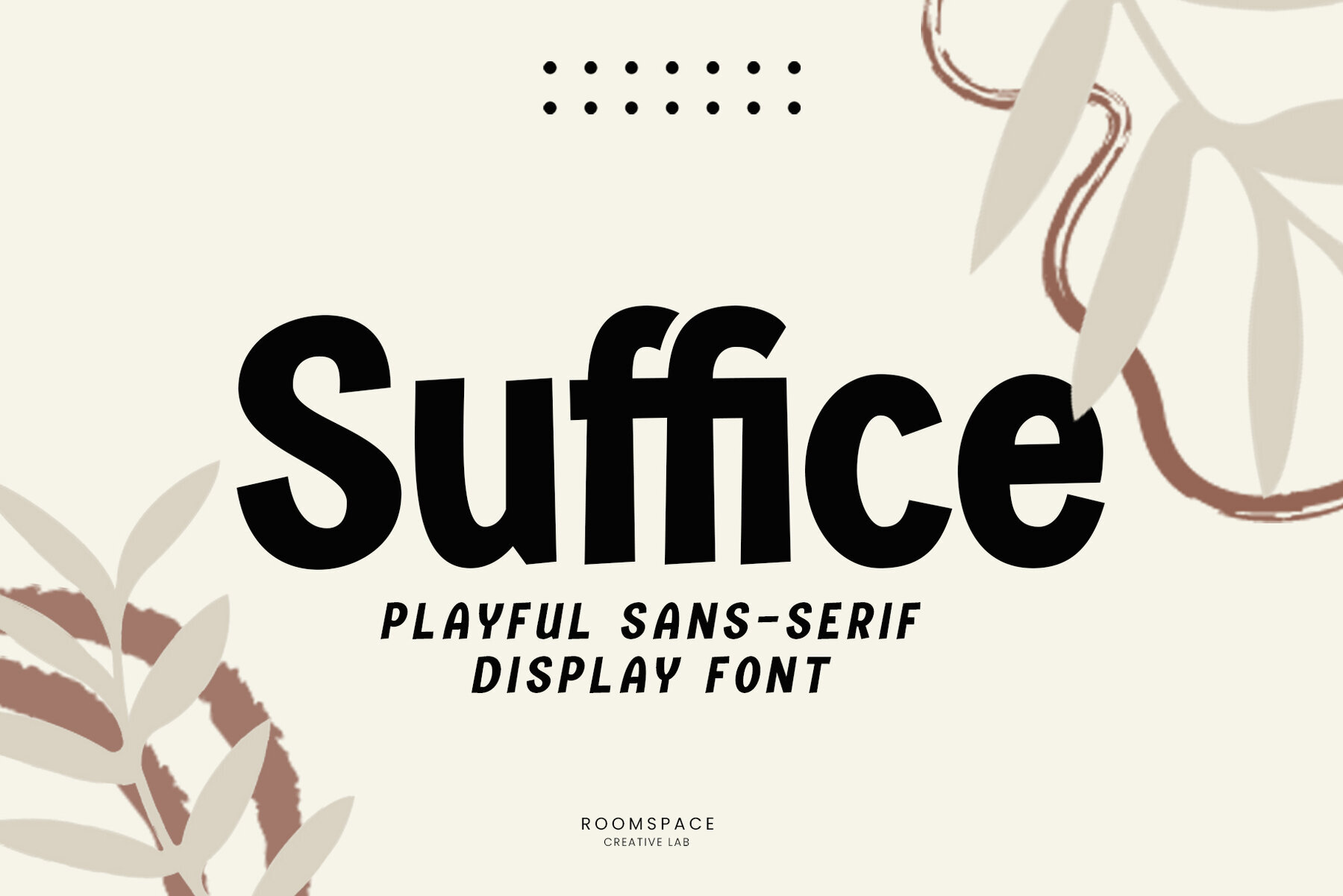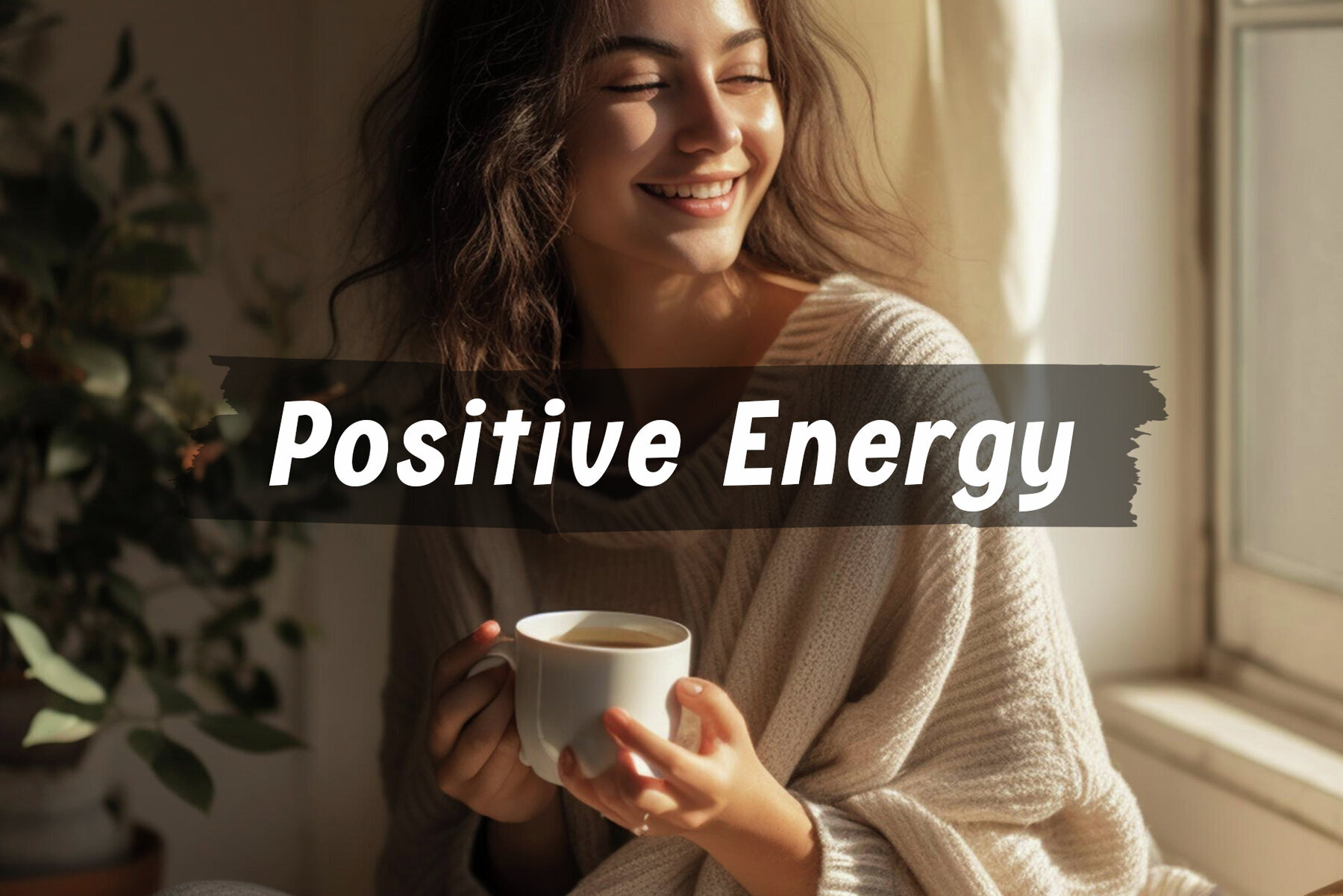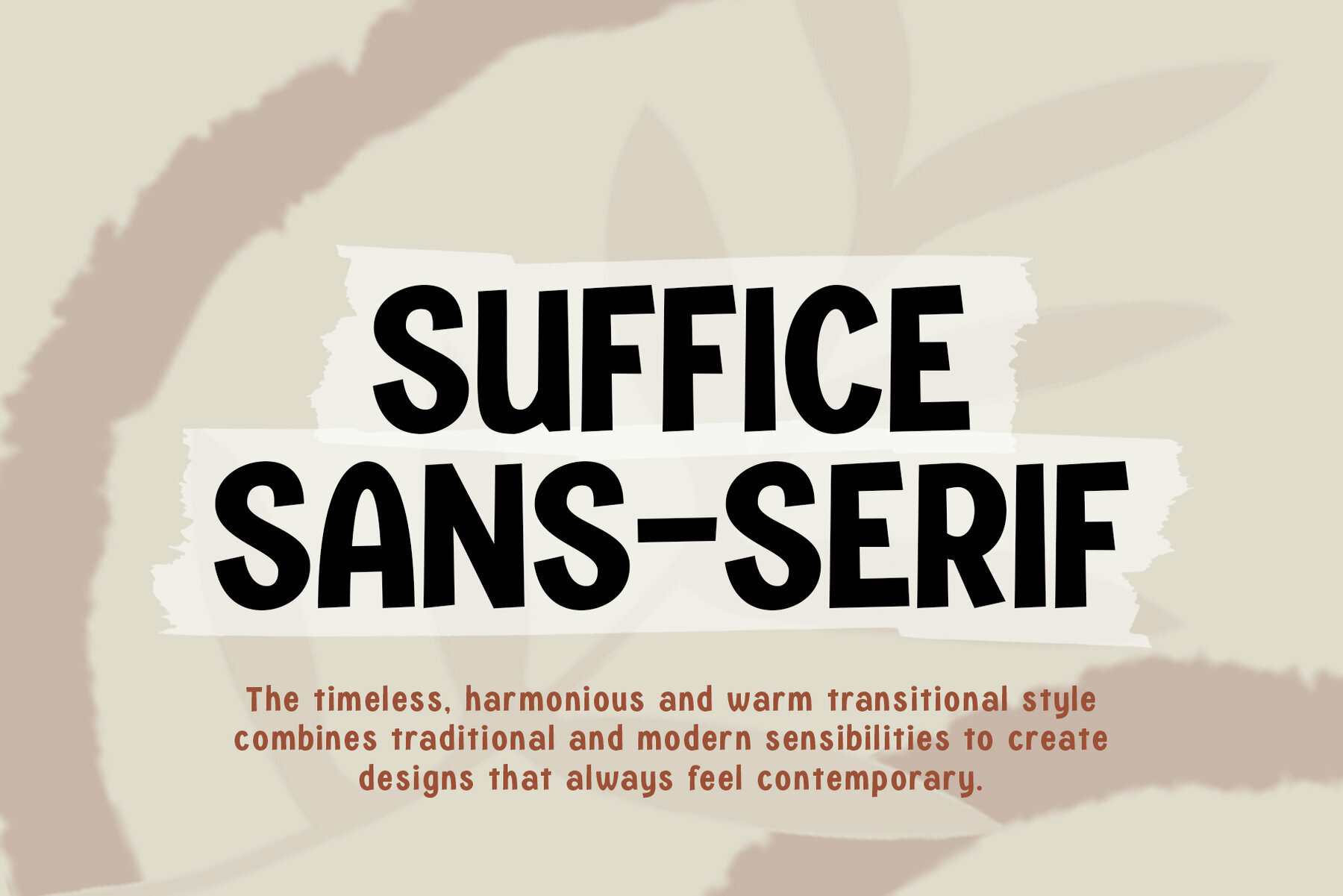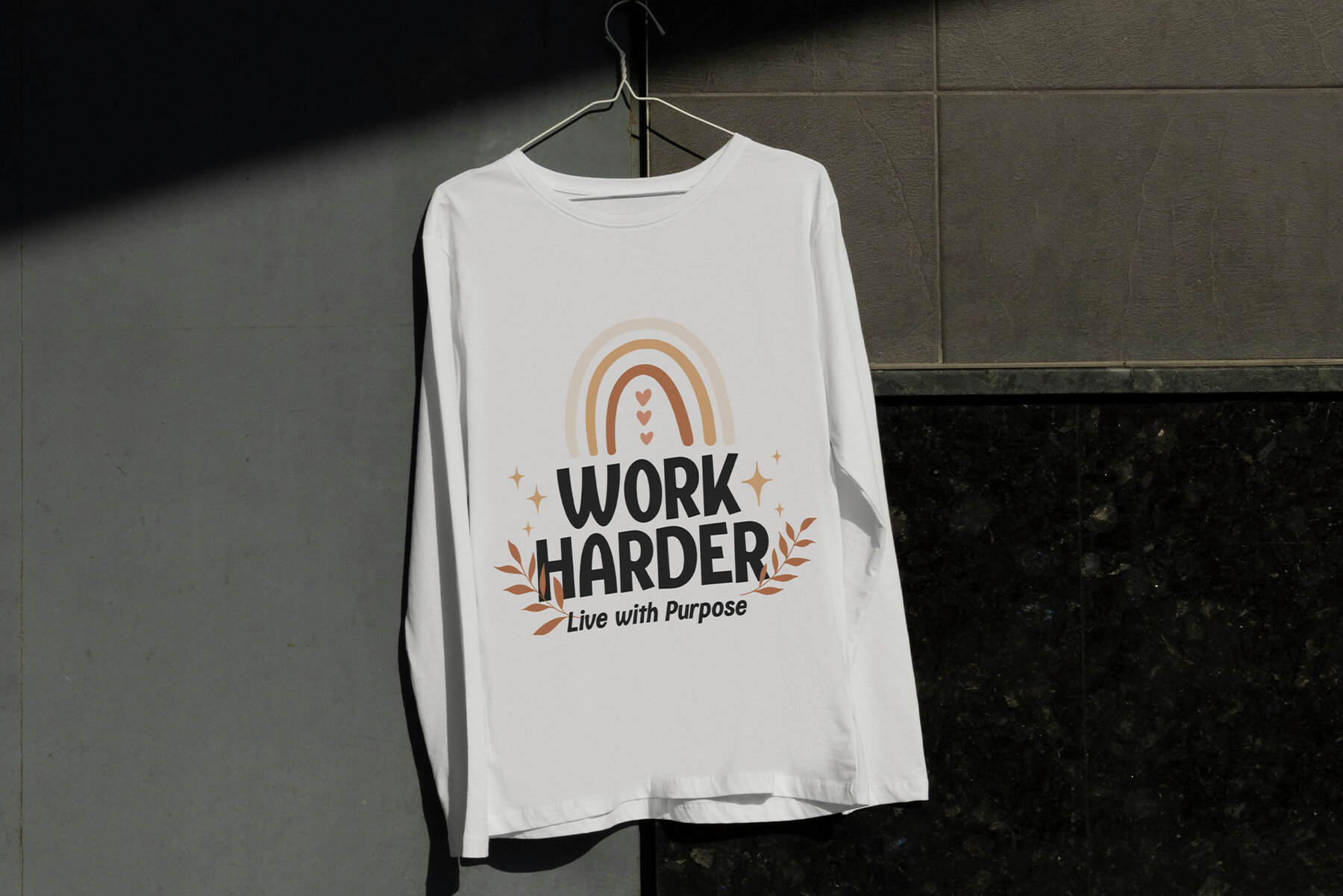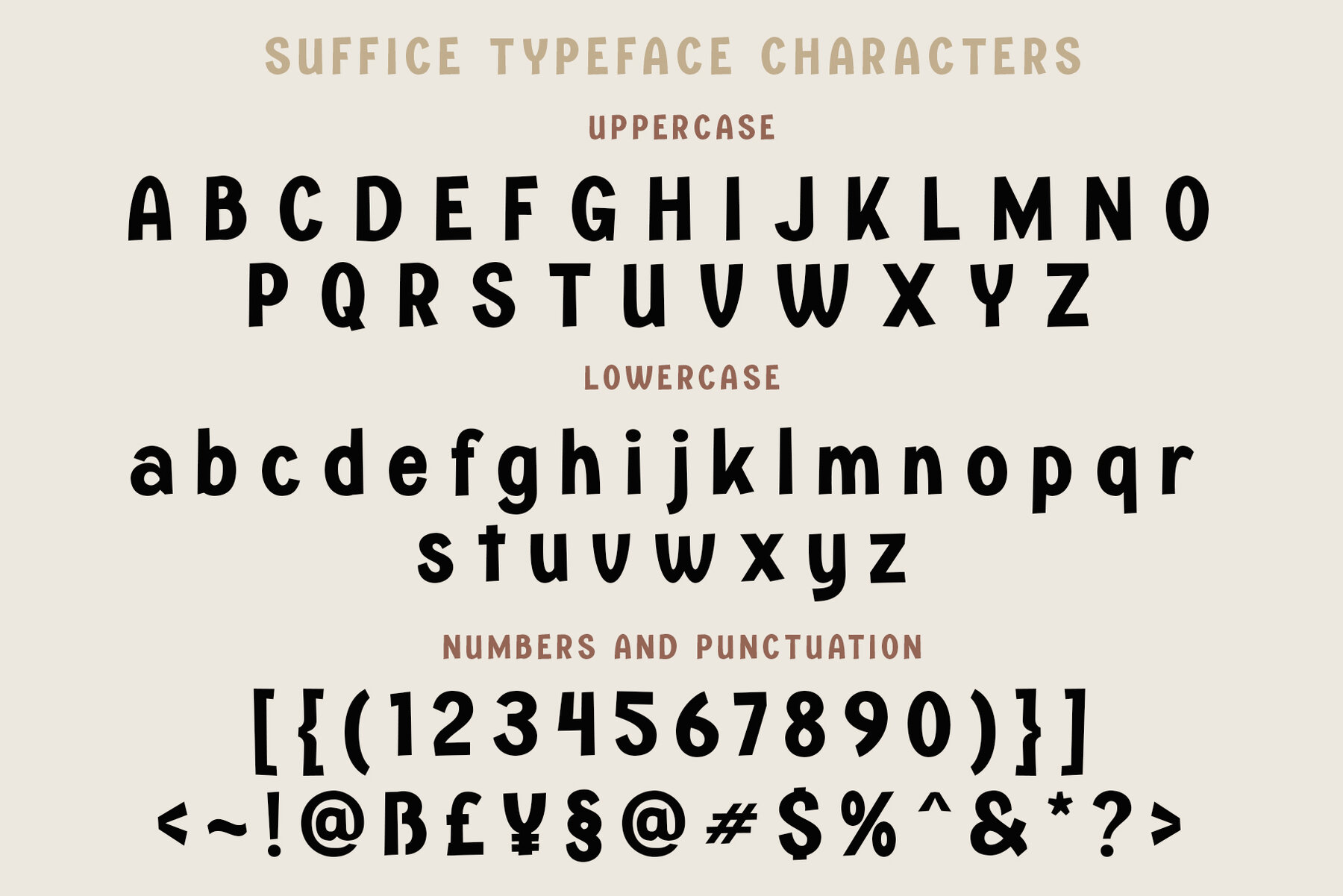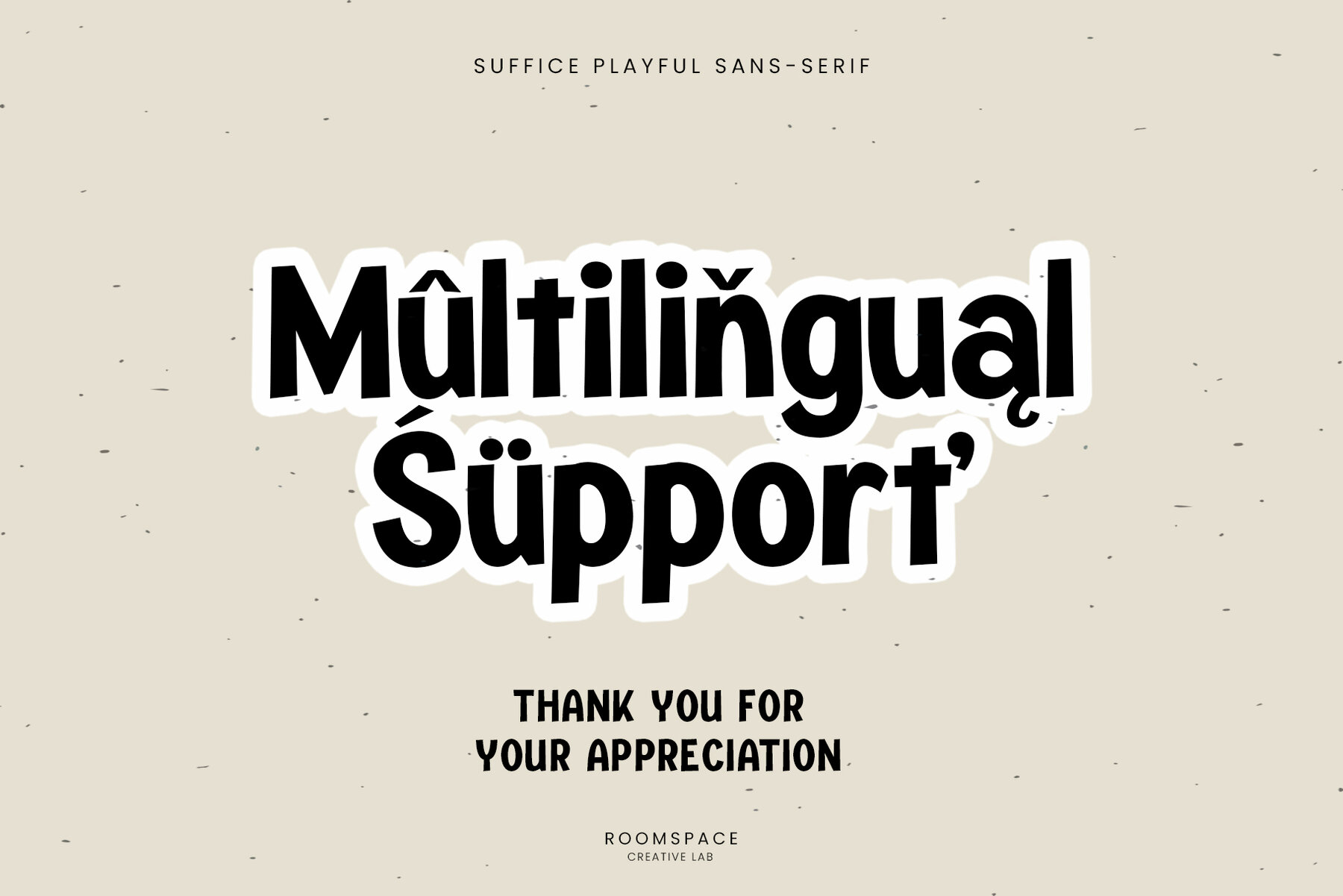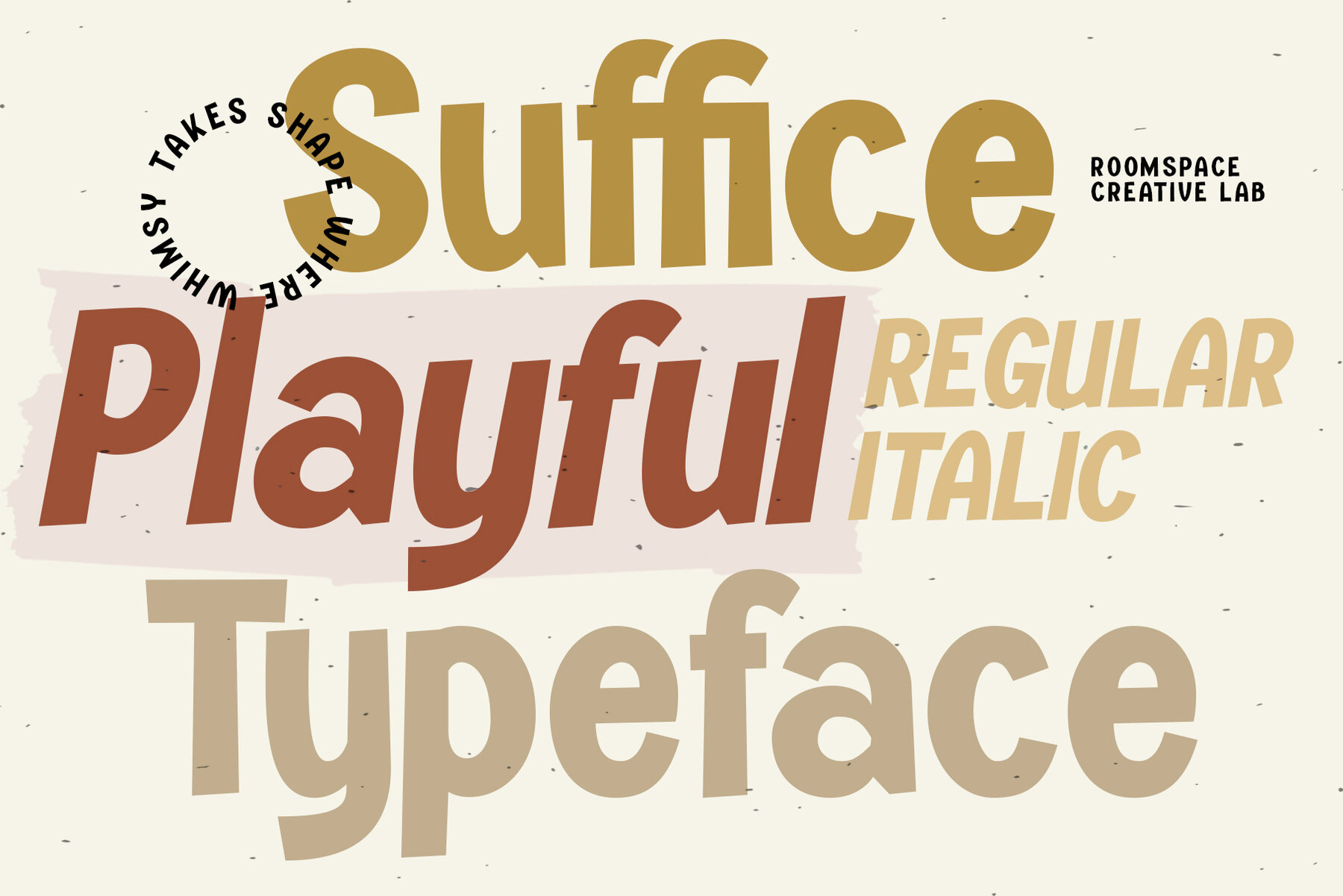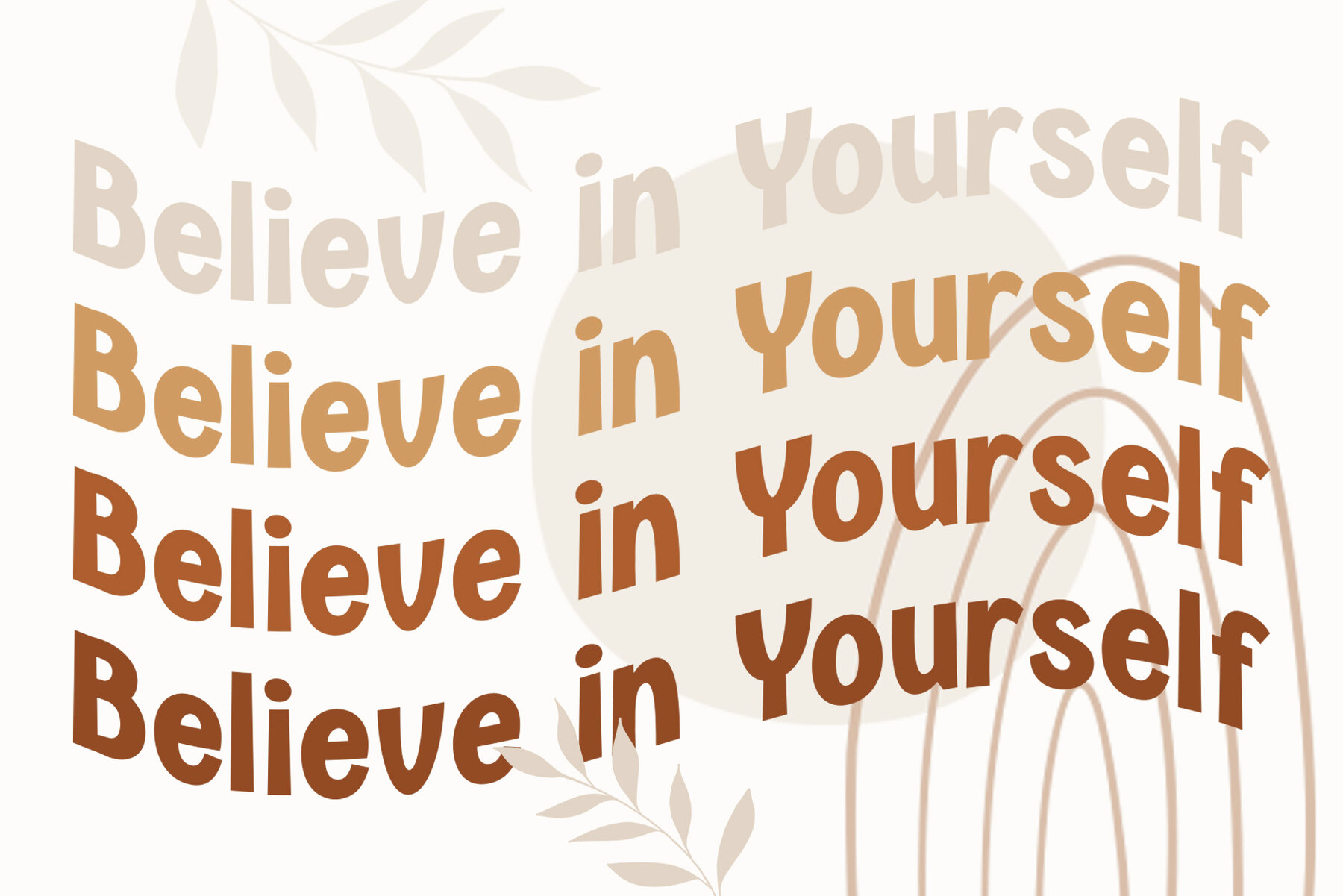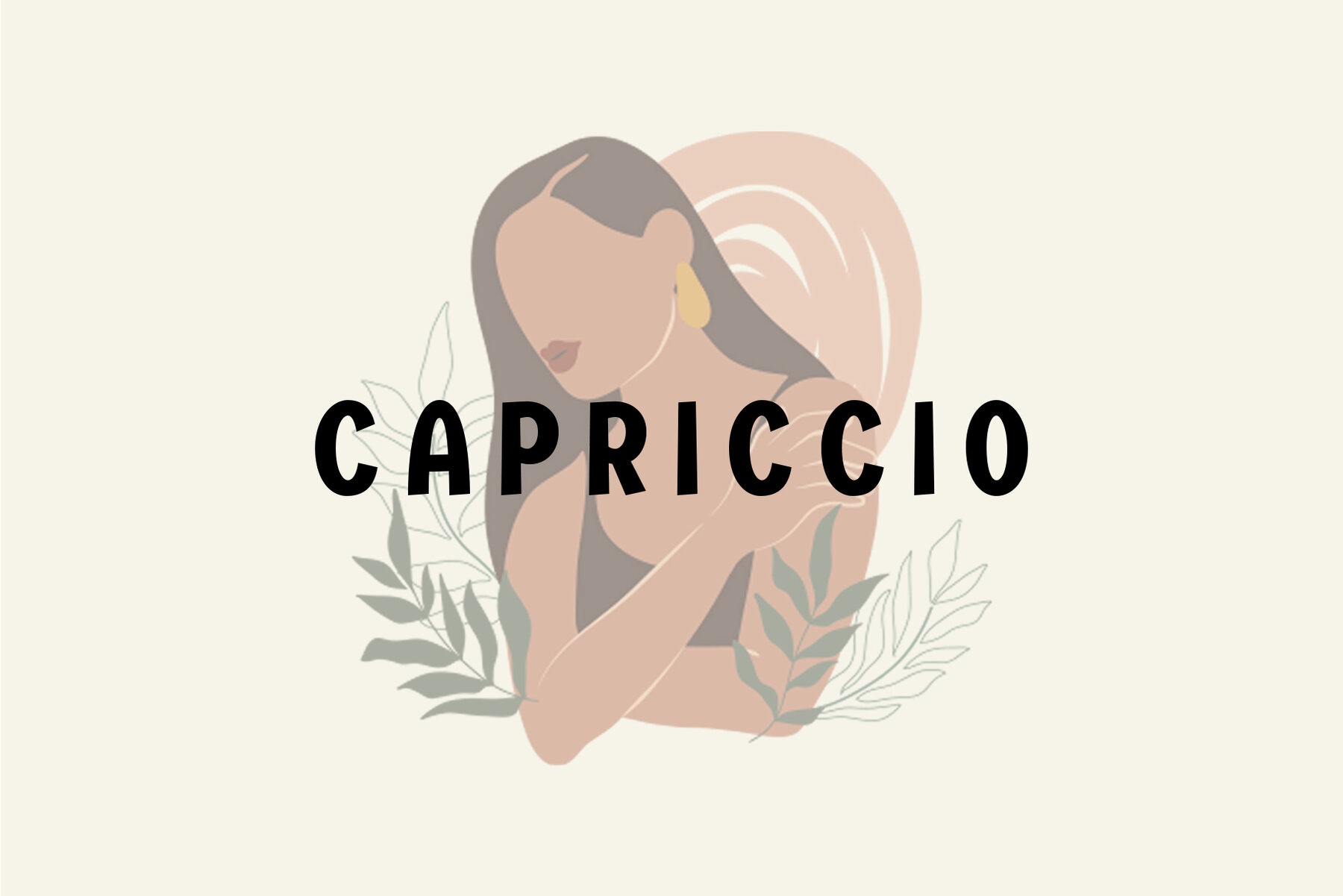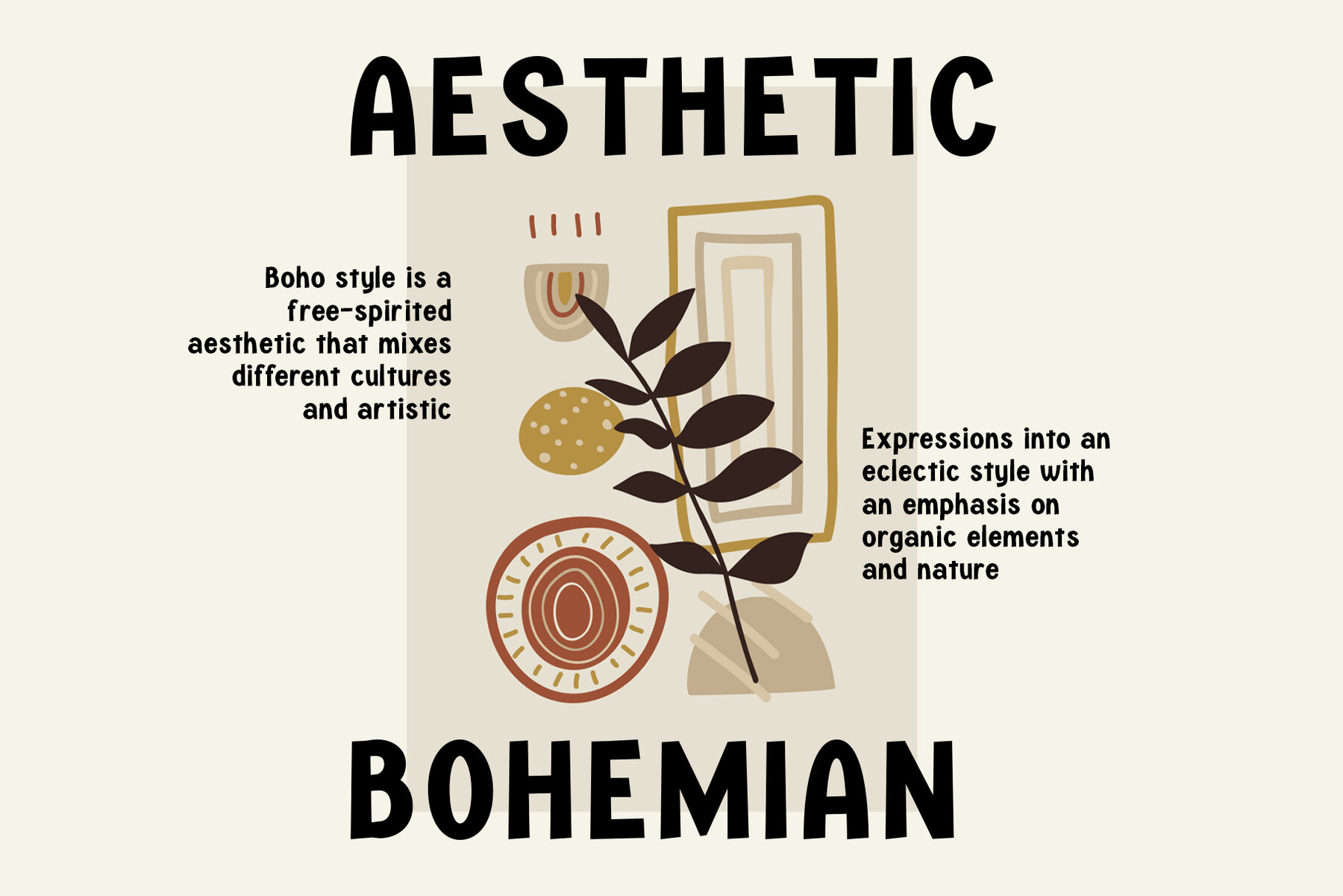
Suffice Font
"Suffice" is a captivating sans serif font that effortlessly combines modern, playful, and boho-inspired elements. Designed with meticulous attention to detail, it strikes a perfect balance between contemporary sophistication and whimsical charm. With its clean lines and balanced proportions, "Suffice" exudes a sense of modernity while retaining a playful edge that sets it apart. Whether you're working on branding, editorial design, or social media graphics, "Suffice" adds a touch of flair and uniqueness to your projects, inviting viewers to engage with your content and leave a lasting impression. What did you get?